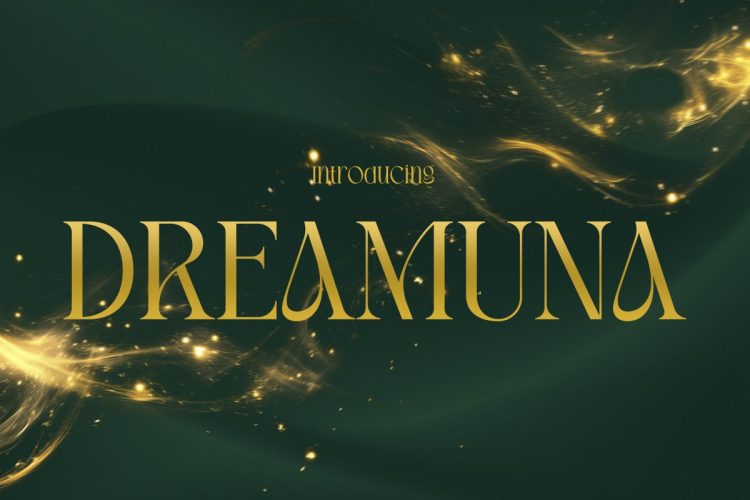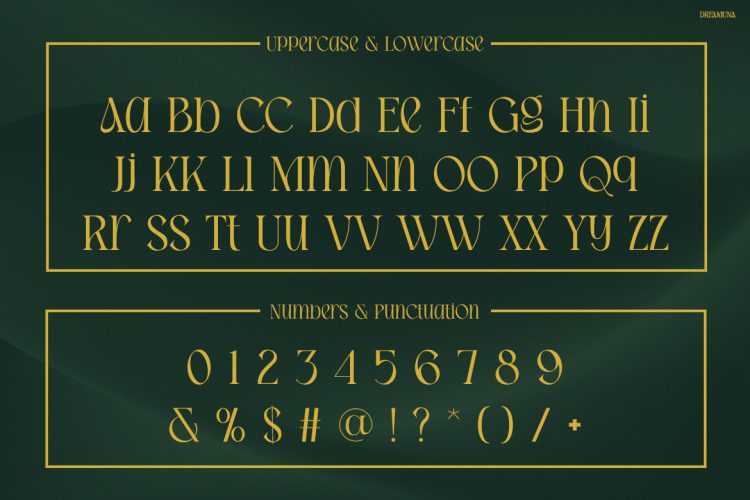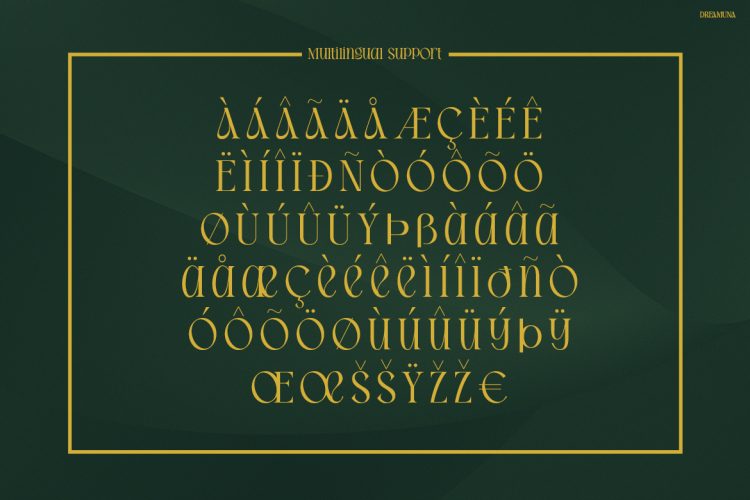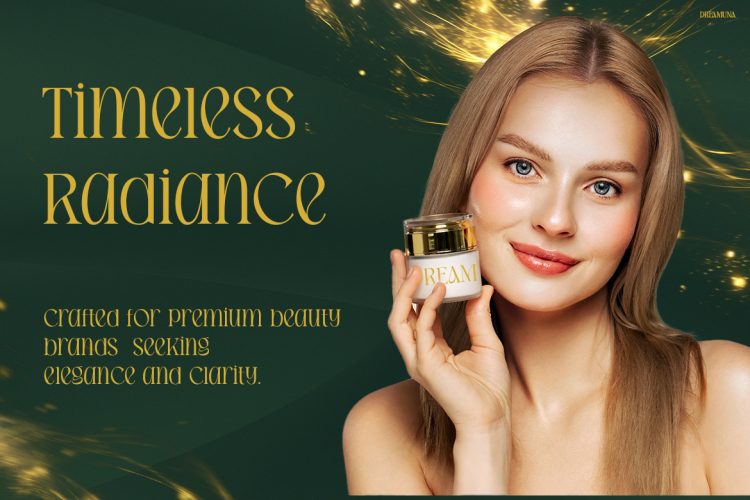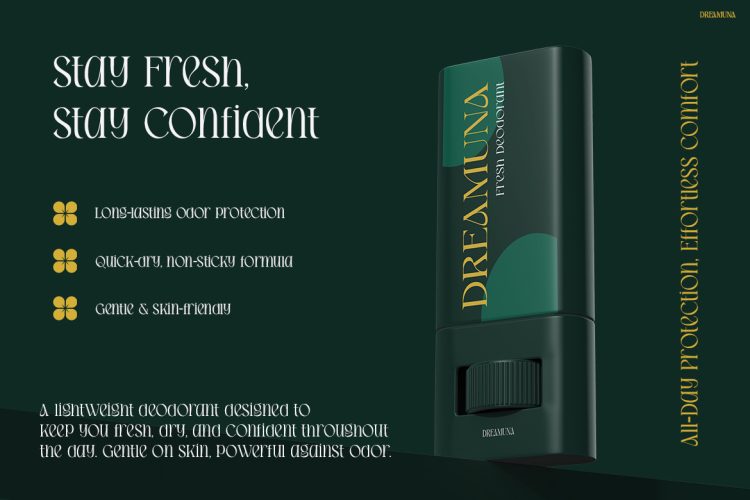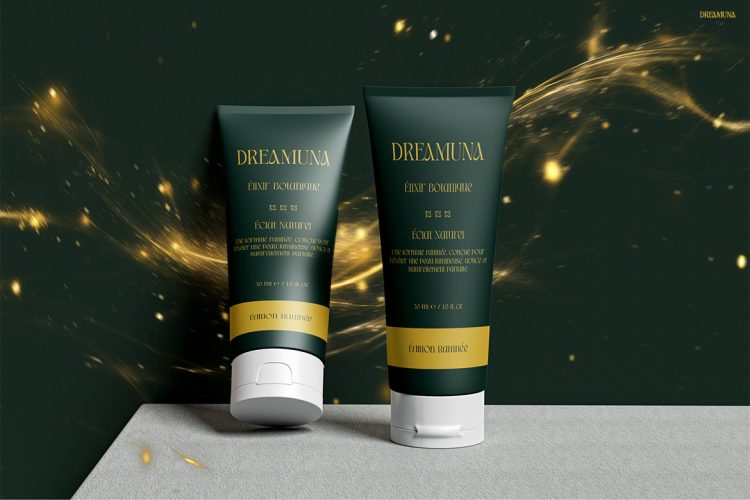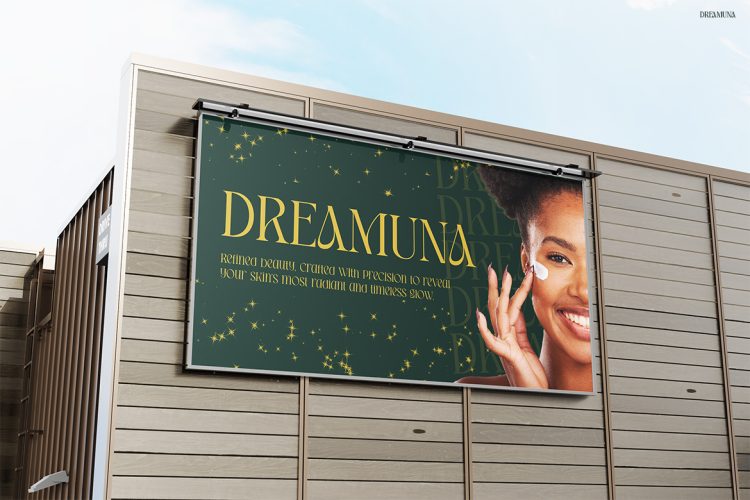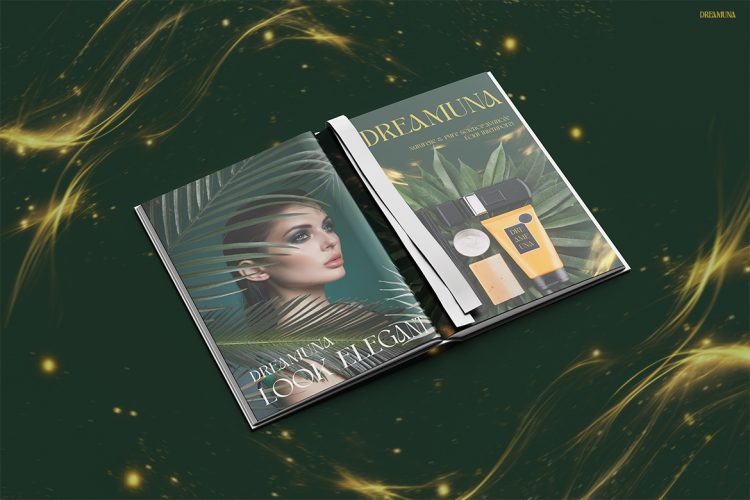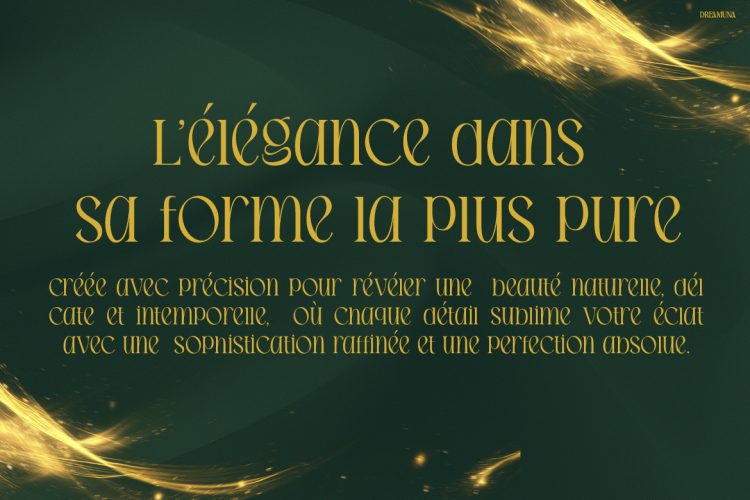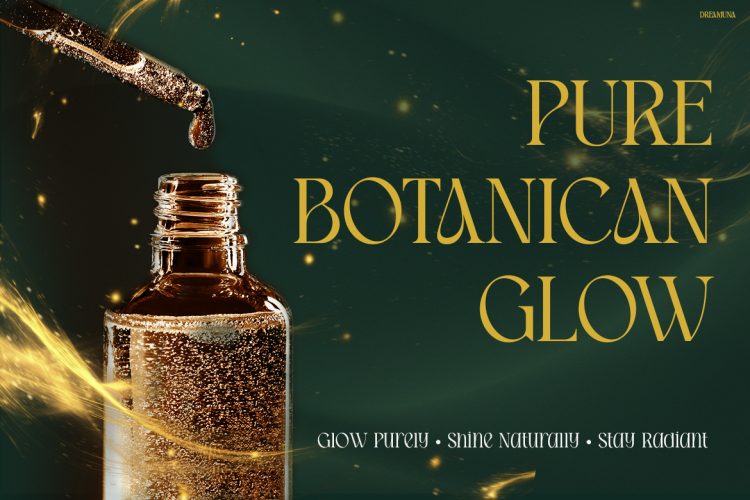
Dreamuna โ Luxury Glow Serif Font
Instagram Font Dreamuna is a sophisticated luxury serif font made for elegant and premium designs. Inspired by high-end beauty campaigns and modern editorial branding, this font delivers a timeless visual style. Moreover, the refined serif details create a polished and glamorous appearance. Every character feels stylish, feminine, and luxurious. As a result, Dreamuna instantly elevates social media content, packaging, and branding projects. In addition, the glowing editorial vibe gives every layout a classy and cinematic touch. Therefore, this font is perfect for creatives who want modern luxury aesthetics with strong visual impact.
Why Instagram Font Dreamuna Stands Out
Dreamuna combines elegant beauty with clean readability. The font looks artistic while still staying professional and easy to read. Furthermore, its modern serif structure creates a sophisticated atmosphere for luxury branding. The balanced spacing keeps headlines sharp and visually comfortable. Meanwhile, the smooth curves add softness without losing elegance. Because of its versatile style, Dreamuna fits both minimalist and glamorous concepts perfectly. It also includes Multilingual Support for 67 Languages. Therefore, the font works beautifully for international brands and global creative projects.
Dreamuna is ideal for beauty brands, skincare packaging, fashion campaigns, and luxury cafรฉs. In addition, it works beautifully for perfume labels, jewelry branding, boutique logos, and premium social media templates. You can also use it for magazine covers, cosmetic ads, elegant invitations, and wedding branding. Likewise, the font looks stunning on product packaging and feminine visual identities. Whether for print or digital projects, Dreamuna helps your designs feel polished, expensive, and memorable.
Elevate Your Brand with Luxury Energy
Bring elegant luxury into every project with Instagram Font Dreamuna. Not only does the font create strong visual impact, but it also adds emotional beauty to your branding. As a result, your content feels more premium and engaging. The stylish serif details instantly create a classy atmosphere across modern designs. So, if you want a font that feels timeless, glamorous, and professional, Dreamuna is the perfect choice. Get Dreamuna today and transform your visuals into luxurious brand experiences.